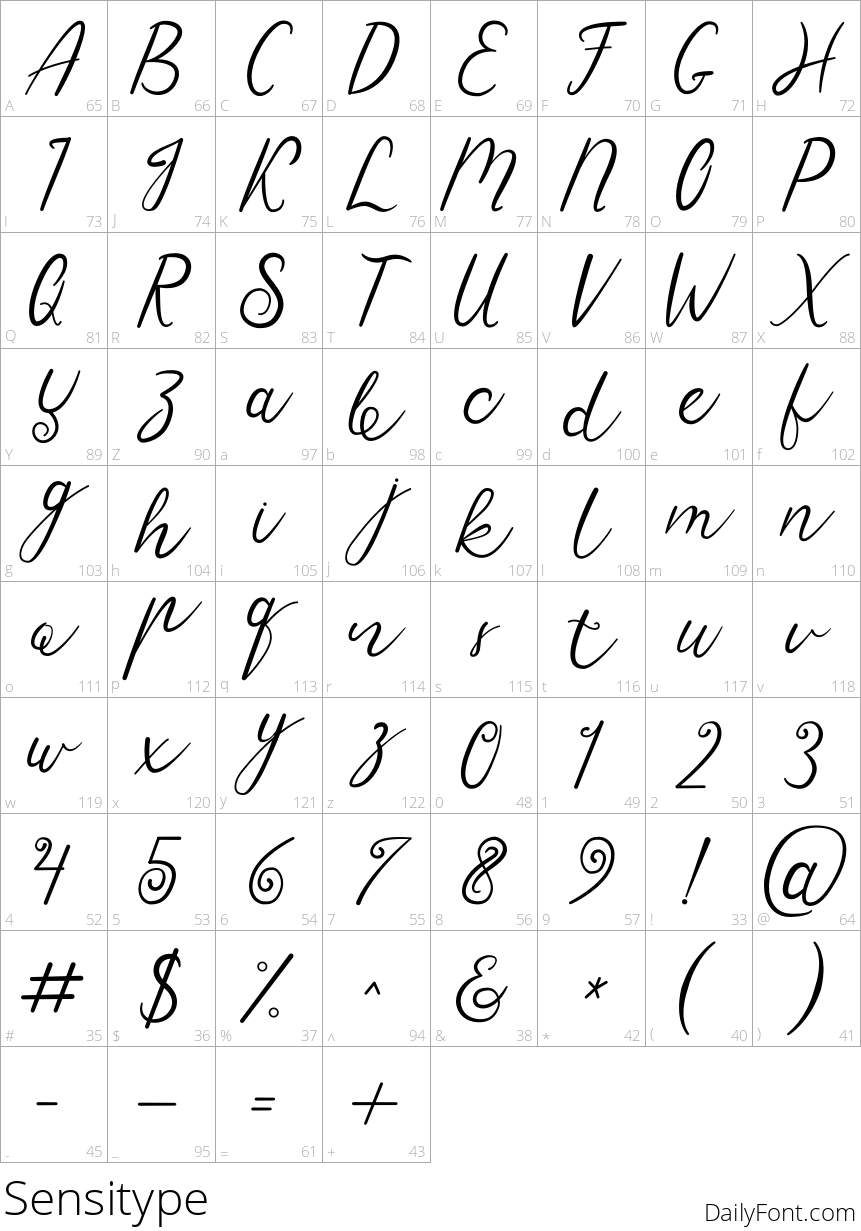
Sensitype
The Sensitype font is a stunningly beautiful handwritten script that has been painstakingly crafted with an abundance of care and attention to detail. This unique typeface seamlessly melds the graceful qualities of watercolor artistry with the distinctiveness of hand-crafted lettering. Every stroke and curve of the characters has been designed with a heartfelt commitment to creating a truly exceptional script.
Originally conceived with a primary purpose in mind, the Sensitype font was tailor-made to add an extra layer of charm and sophistication to wedding invitations. Its intricate and delicate design perfectly complements the romantic and special nature of such occasions, making it an ideal choice for couples looking to set the tone for their big day with an air of timeless elegance.
However, the beauty of the Sensitype font extends beyond its initial purpose. It serves as a versatile tool for designers and creatives seeking to infuse their projects with a touch of luxury. Whether you're working on branding materials, packaging design, or any other creative endeavor, the Sensitype font can elevate your work to a whole new level, imbuing it with a sense of refinement and exclusivity.
In essence, the Sensitype font is not just a typeface; it's a work of art in itself, ready to bring beauty and sophistication to a wide range of design applications, while always retaining the essence of handcrafted elegance.